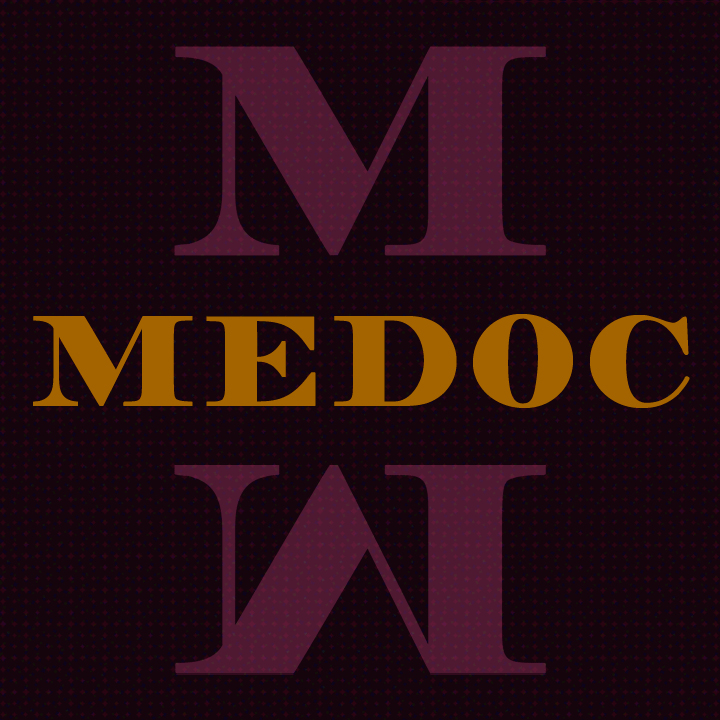
About this font family “Medoc” is a clean and fresh font, designed with the intention of producing a good readable modern typeface. Medoc has historical roots, though it’s redesigned with precision and a high contrast. Medoc will catch the reader’s eye immediately. Both the regular and italic match in perfect harmony. Useful for titling, head text, magazines, posters and all your graphic work that need a nice and modern look! ******************* NOTE: THIS IS A DEMO-FONT FOR PERSONAL USE ONLY! If you are going to use it commercially, then a donation is required. You can also buy the full version, which comes a family of the font, with perfect kerning, embedding rights, all glyphs and extras. You CANNOT use this font in games, apps, books,software or distribute it see the full liscence on my website. Have respect for the Type Designers work, so keep the Type Designer alive! ******************* Purchase the full commercially licensed version at: https://www.myfonts.com/fonts/kustomtype/medoc/ ******************* For questions or proposals, feel very free to mail info@kustomtype.com Like my fonts on Facebook: http://www.facebook.com/kustomtype Visit my website: http://www.kustomtype.com More... |